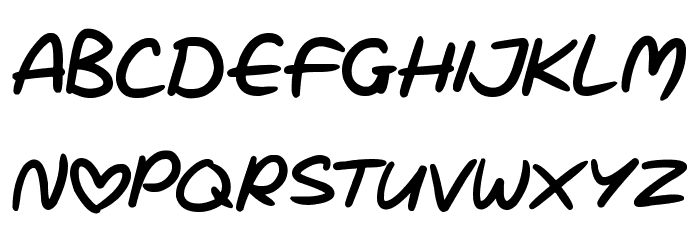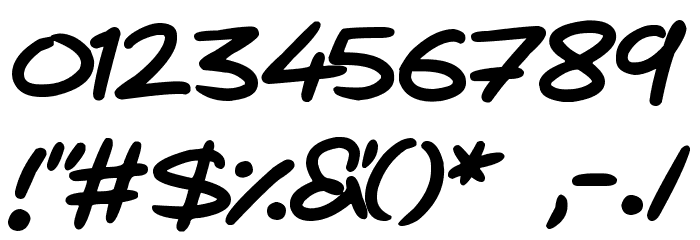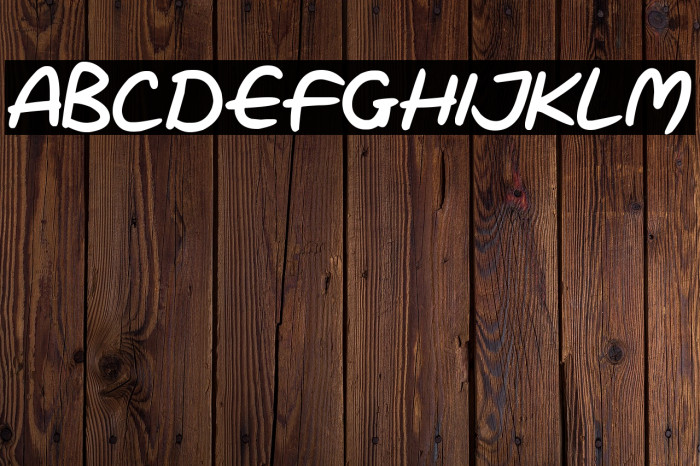
Love Marker Font
This font features a playful and energetic handwritten style, characterized by its bold and rounded letterforms. The strokes are smooth and fluid, giving it a casual and friendly appearance. The uppercase and lowercase letters maintain a consistent style, with a slight slant that adds to the dynamic feel. The numbers and special characters are equally bold, ensuring readability and uniformity across all characters. The heart-shaped 'O' adds a unique and whimsical touch, making it stand out. This font is ideal for projects that require a personal and approachable look.
A bold, playful handwritten font with smooth, rounded strokes and a unique heart-shaped 'O'.
- Proposed Projects: Ideal for greeting cards, playful branding, children's books, and social media graphics.
- Overall Style: Playful, Casual
- Use Case: Headlines, Logos, Greeting Cards